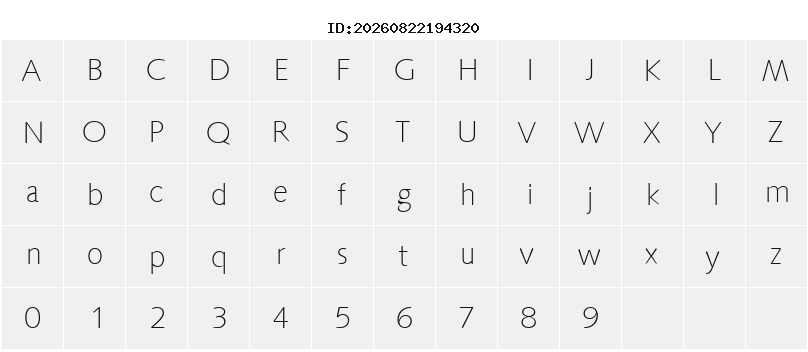
Saxony-Serial-ExtraLight Preview
• Font Name: Saxony-Serial-ExtraLight
About Saxony-Serial-ExtraLight.ttf
Saxony-Serial-ExtraLight.ttf is a modern, elegant sans-serif font designed for ultimate readability and visual harmony. Perfect for branding, headlines, web design, and print materials.